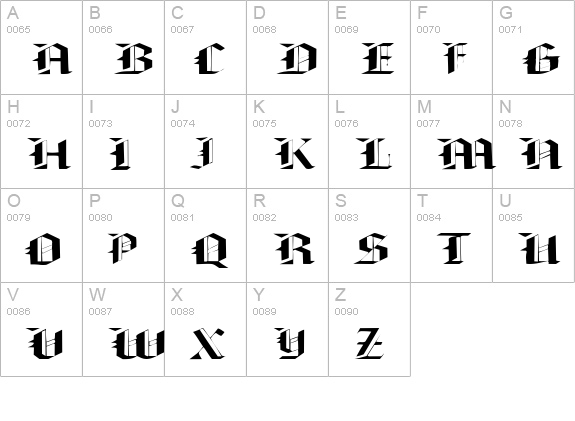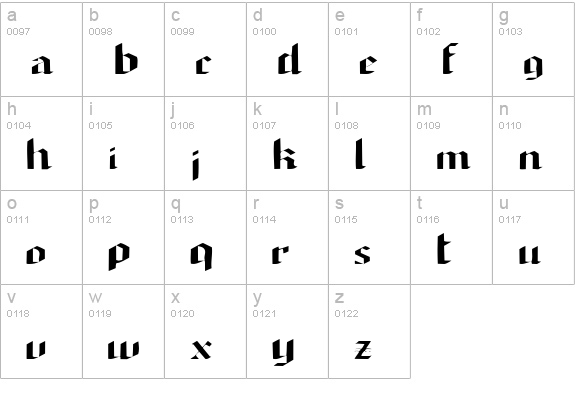
Bonneville Font Details
Bonneville font exudes a sense of timeless elegance and sophistication. With its sleek lines and classic appeal, this font is perfect for adding a touch of refinement to any design project. The smooth curves and sharp angles of Bonneville font create a harmonious balance that is both eye-catching and easy to read. Whether you are designing a logo, a poster, or a website, Bonneville font is sure to make a lasting impression. Its versatility allows it to be used in a variety of contexts, from formal to casual, making it a truly versatile choice for any designer. The best part? Bonneville font is completely free to download at FontsMarket.com! Simply head to the website and grab this stunning font for your next project. Don't miss out on the opportunity to add Bonneville font to your font library today and elevate your designs to a whole new level.